Top 5 Monospaced Fonts for Tech & Coding Aesthetics
While many focus on powerful hardware or sleek IDE themes, one of the most underrated elements of a productive workspace is typography. Specifically, Monospaced Fonts have become the backbone of modern tech aesthetics, offering a perfect blend of functional precision and minimalist style. Whether you are a developer looking to reduce eye strain during midnight coding sessions or a designer aiming for a “cyberpunk” or “brutalist” look, choosing the right fixed-width typeface can transform your entire workflow and visual identity.
Why Monospaced Fonts Matter in 2026
Before diving into our top picks, it is essential to understand why these fonts remain the gold standard for technical environments. Unlike proportional fonts, where a “w” takes up more horizontal space than an “i,” every character in a monospaced typeface occupies the exact same amount of room.
Code Alignment
Indentations and vertical columns stay perfectly straight, making it easier to spot syntax errors.
Character Diff
Distinguishes between commonly confused characters like 0 (zero) and O, or 1, l, and I.
Visual Rhythm
A consistent horizontal pace allows the brain to process lines of code or data more predictably.
Here are the top 5 Monospaced Fonts that are currently dominating the tech landscape for their superior legibility and cutting-edge aesthetics.
1. JetBrains Mono: The Developer’s Favorite
Originally created by the team behind popular IDEs like IntelliJ and PyCharm, JetBrains Mono has quickly become the industry standard. What sets it apart is its specific focus on the “reading” aspect of coding rather than just the “writing.”
The font aesthetics features an increased x-height, which makes lowercase letters appear larger and clearer. It also includes 145 code ligatures—special symbols that merge characters.
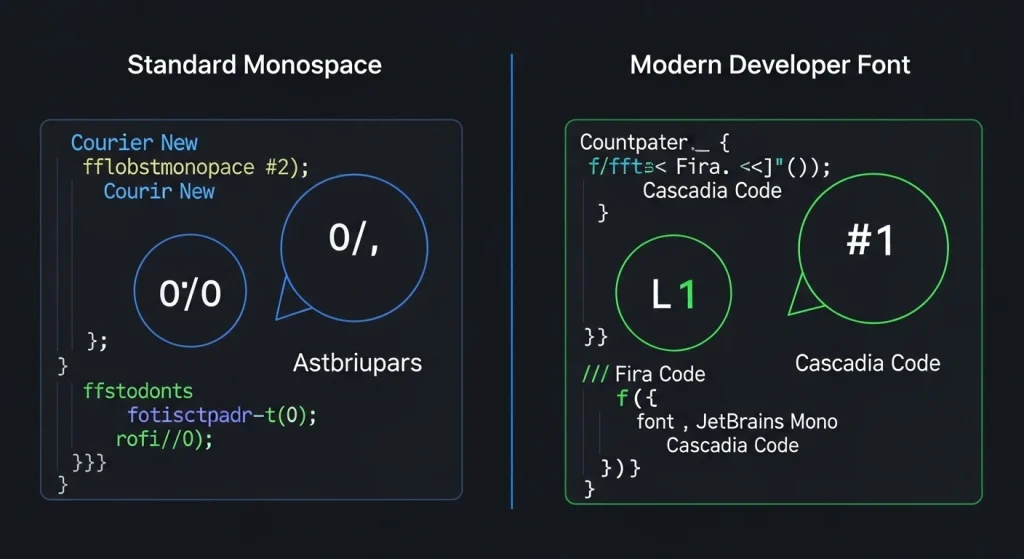
2. Fira Code: The Ligature King
Fira Code is an extension of Fira Mono, but it takes the concept of “coding aesthetics” to the next level. It was one of the first fonts to popularize programming ligatures, which visually simplify complex code operators. It feels “airy” compared to traditional typewriter fonts, maintaining a high-tech vibe without sacrificing readability.
3. Neue Montreal Mono: The Design-First Choice
For those who prioritize the “aesthetic” in tech aesthetics, Neue Montreal Mono is a masterpiece. It brings a high-end, editorial feel to the developer world. It is frequently used by creative developers and UI designers who want their websites to look like a futuristic technical manual.
4. Source Code Pro: Adobe’s Open-Source Gem
Developed by Adobe, Source Code Pro is widely loved for its balance. The character shapes are slightly wider than average, which provides a comfortable breathing room between letters. This makes it an excellent choice for developers who work on smaller laptop screens.
5. Geist Mono: The Minimalist Newcomer
Created by Vercel, the team behind Next.js, Geist Mono was designed specifically for the modern web. It is incredibly sharp, using geometric shapes and tight tracking to create a look that feels “engineered.” It is the ultimate choice for the minimalist developer.
Conclusion: Elevating Your Technical Space
Selecting the right typeface is a deeply personal decision that impacts both your productivity and your brand. From the ligature-heavy power of JetBrains Mono to the design-centric beauty of Neue Montreal Mono, the current landscape of typography offers something for every type of creator.
When choosing your next font, remember to test it at different sizes and under different color themes. By investing in high-quality Monospaced Fonts, you aren’t just changing the way your text looks—you are optimizing the way you interact with your digital world.